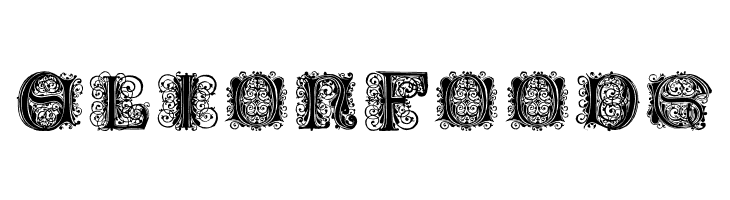
A bold, gothic blackletter font with ornate detailing and sharp angles.
A bold, decorative font with artistic, swirling elements and intricate details.
An ornate gothic font with elaborate swirls and bold blackletter elements.
A bold, decorative font with intricate and artistic letterforms.
An ornate, decorative font with intricate, floral designs ideal for elegant projects.
An ornate and decorative font with intricate swirls and flourishes.